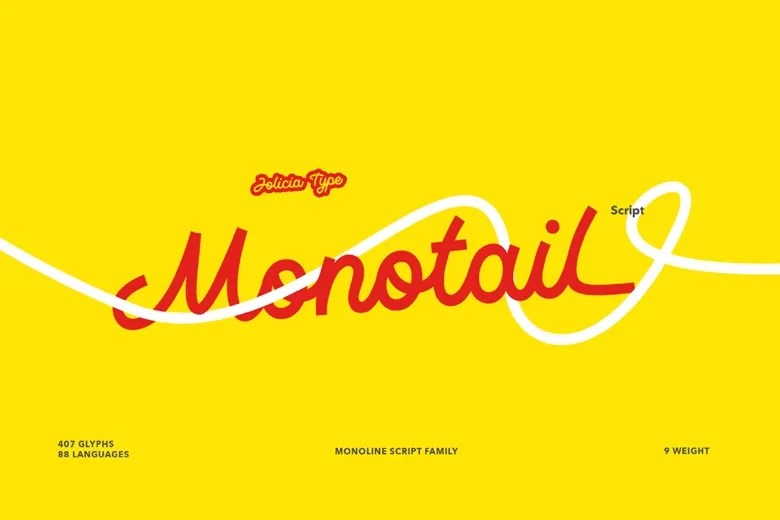
Monotail Script Font
Monotail Script, created by Laire Banyu Sandi, is a highly detailed monoline script font family available in 9 weights, ranging from thin to black. This typeface is characterized by sleek fine lines and clean, uniform strokes, making it perfect for contemporary typography. Its smooth and consistent appearance meets the high standards of modern design, from corporate branding to editorial content.
The versatility of Monotail Script shines through its ability to adapt to both minimalist and dynamic design styles. Whether for formal uses or playful projects, this font remains highly legible and engaging. Ideal for branding, website design, content creation, and more, Monotail Script adds a unique touch to any design project.